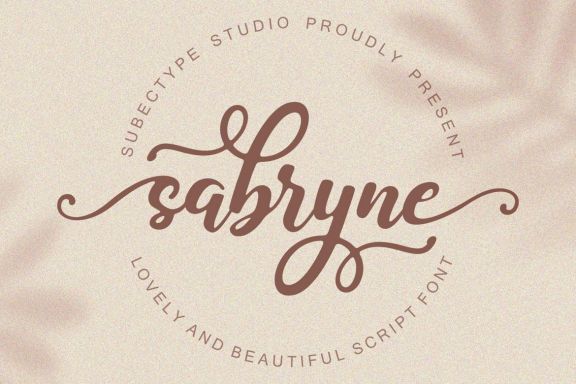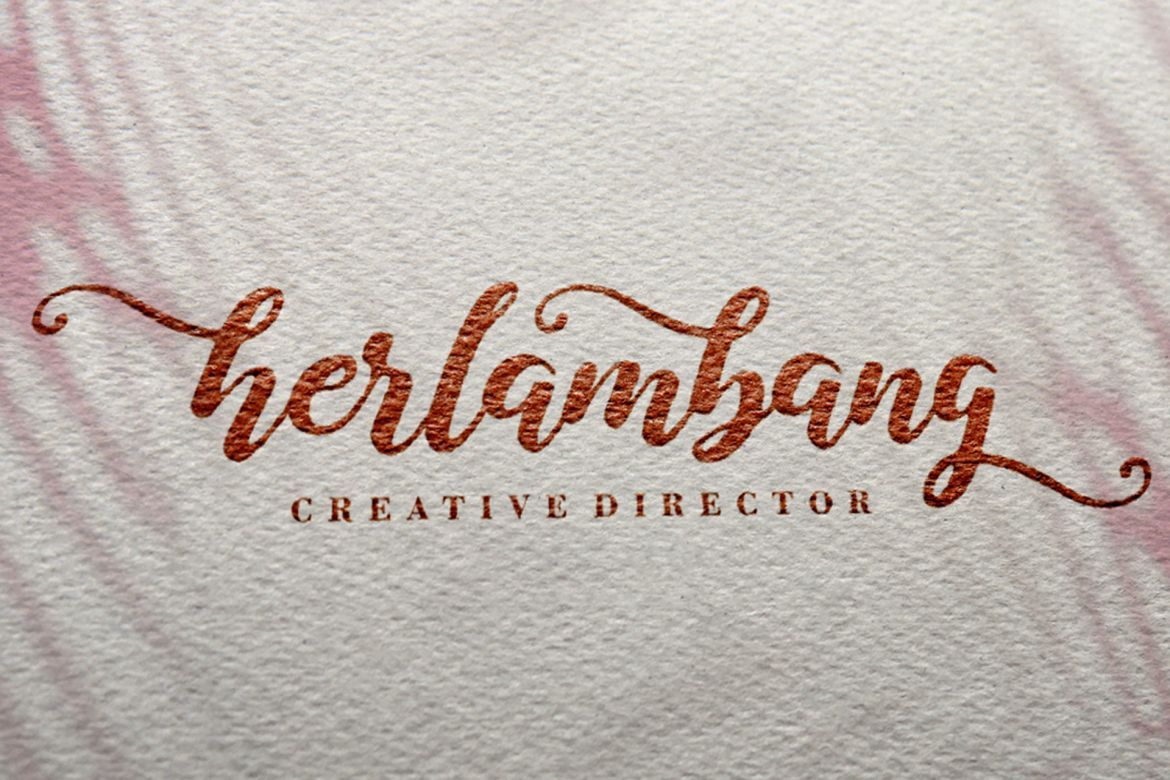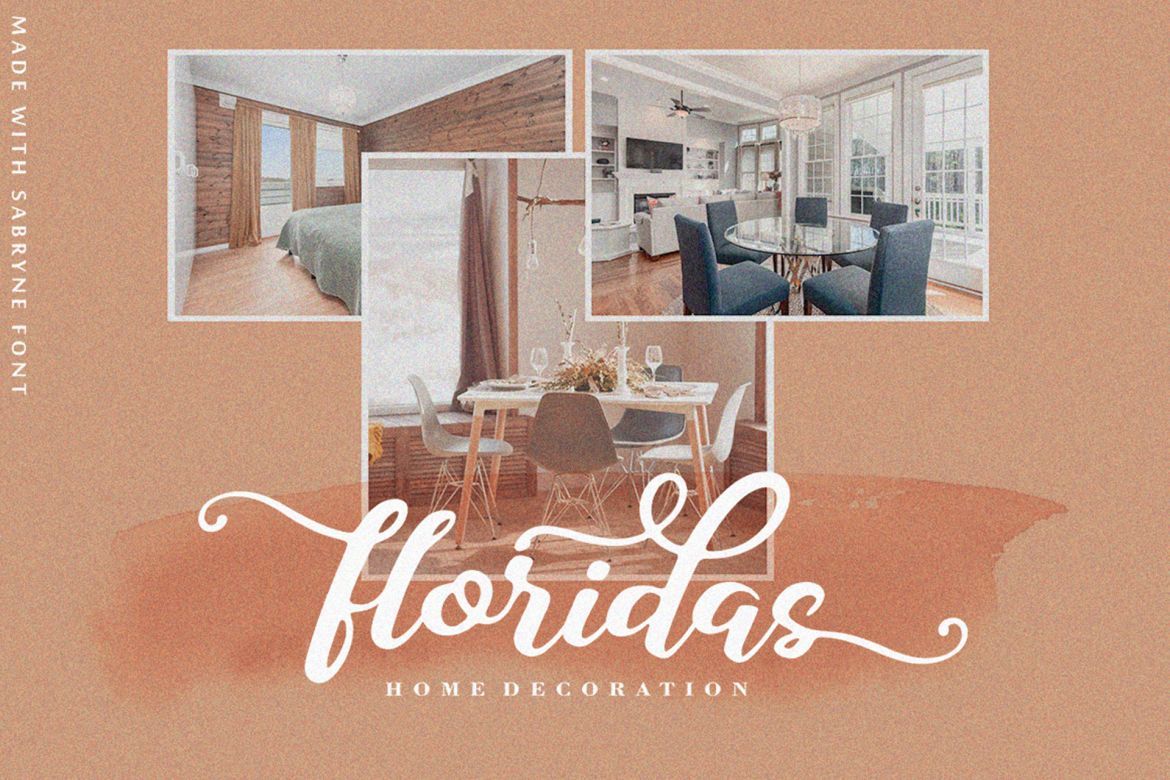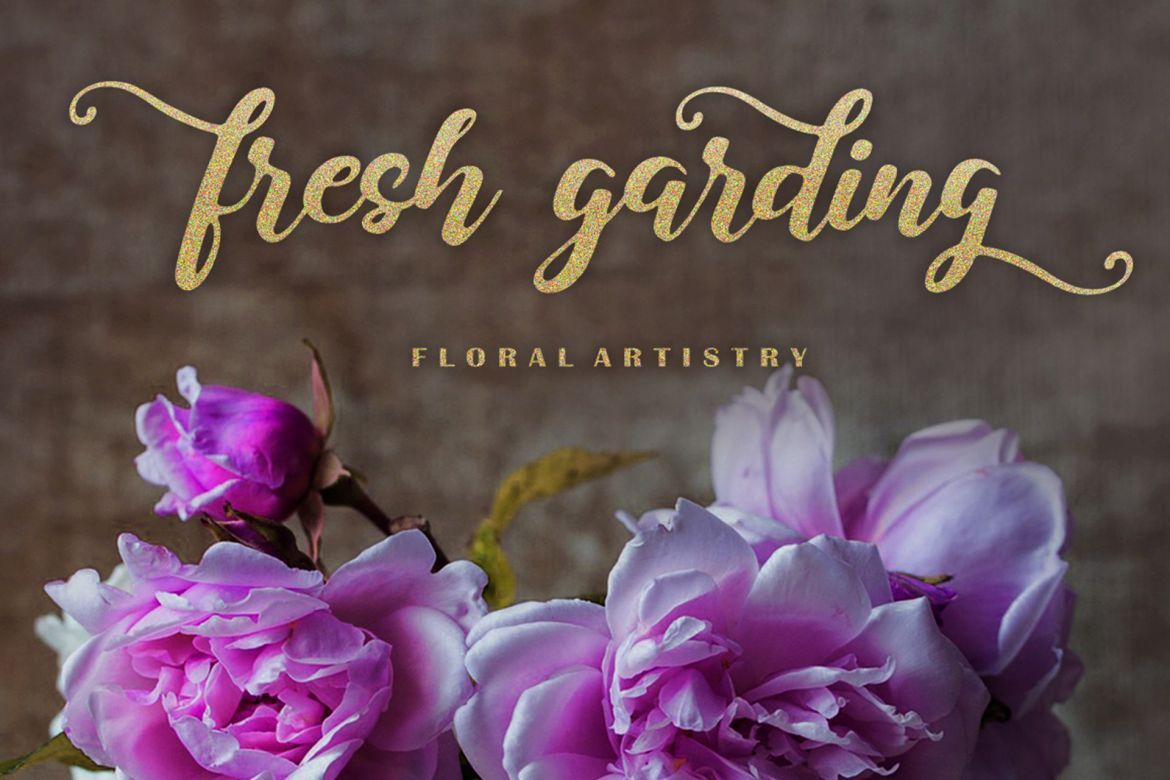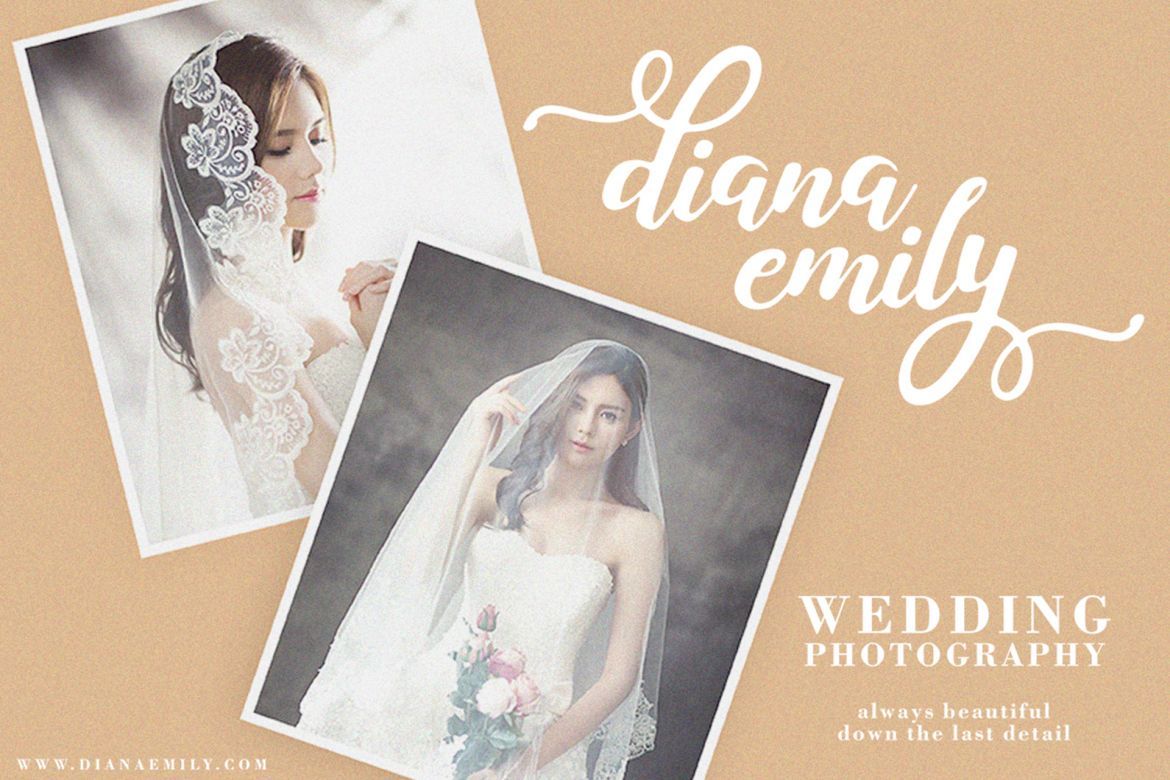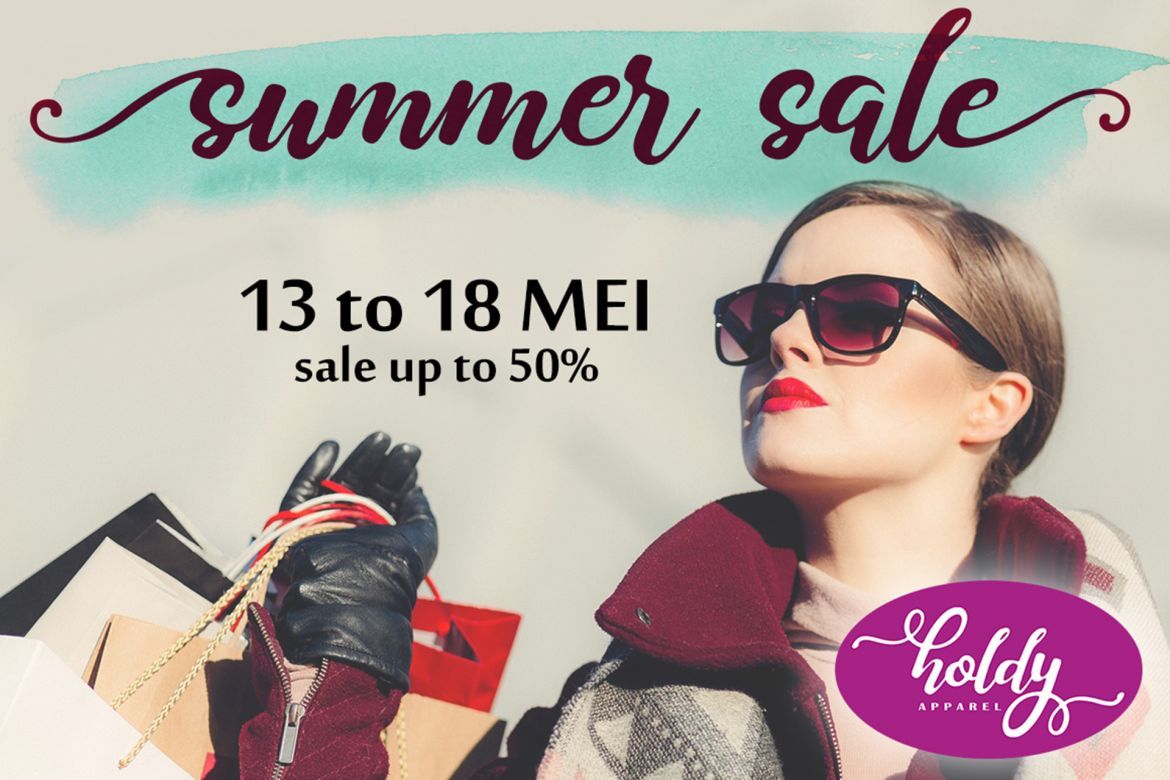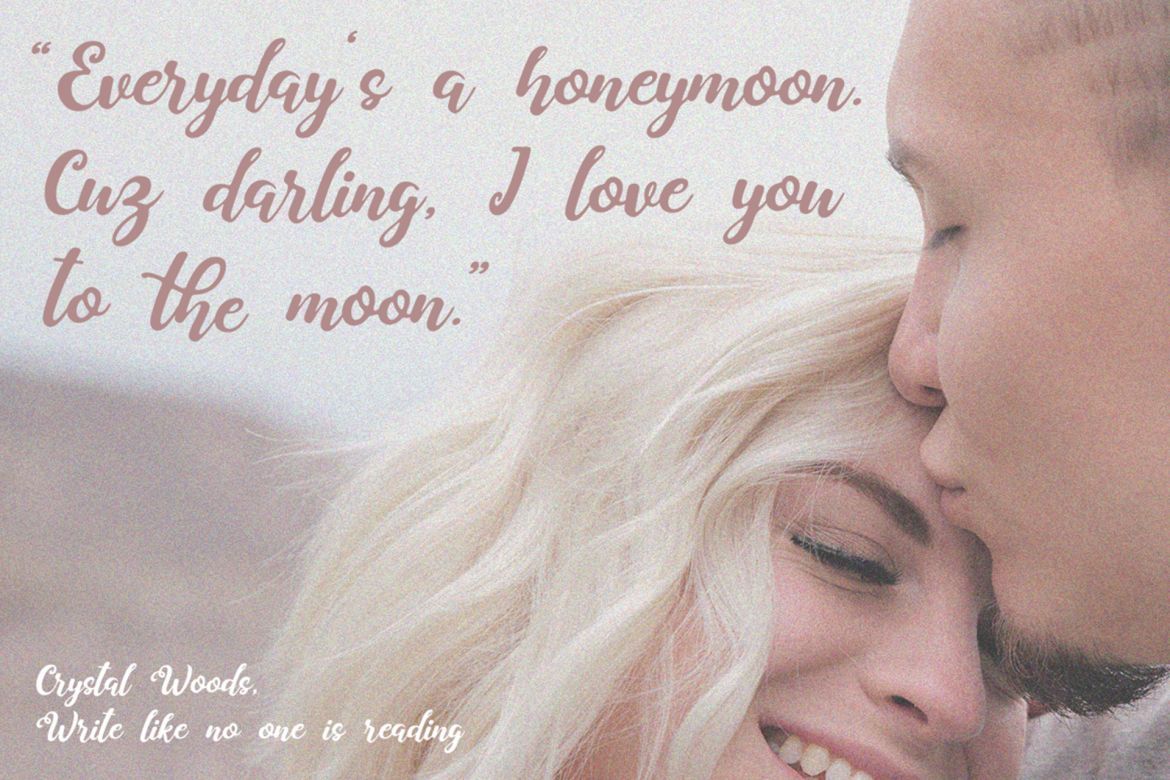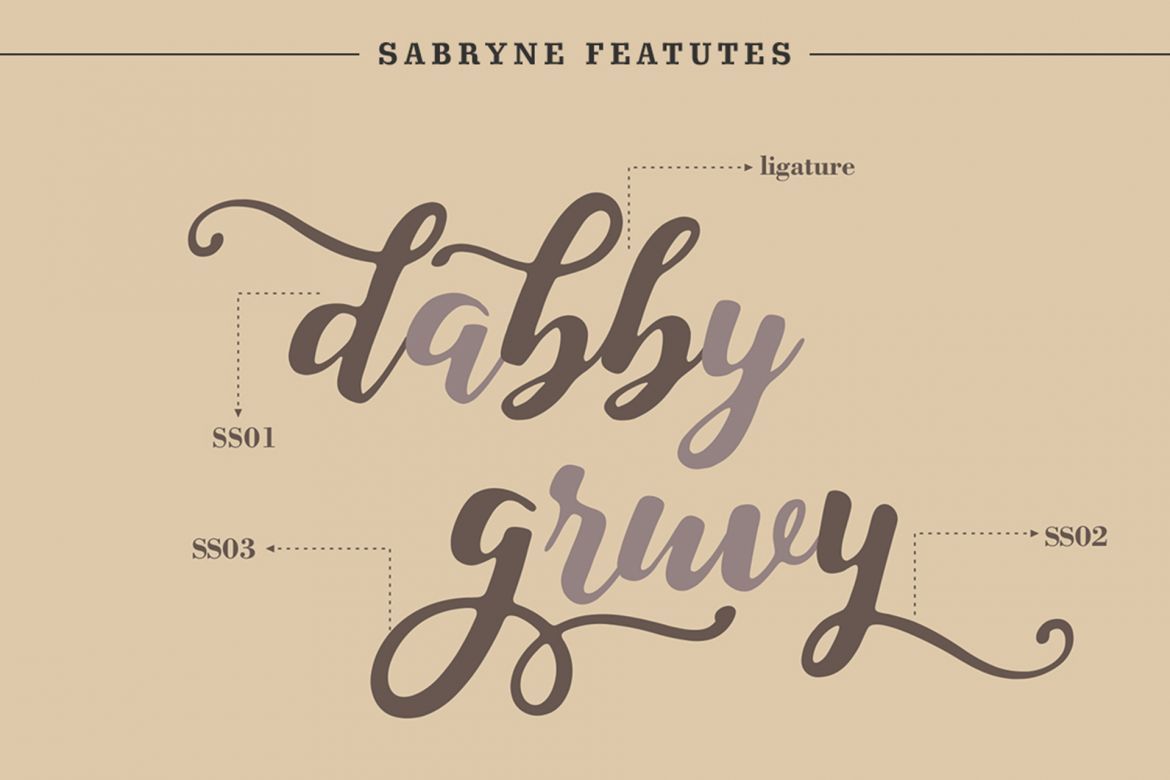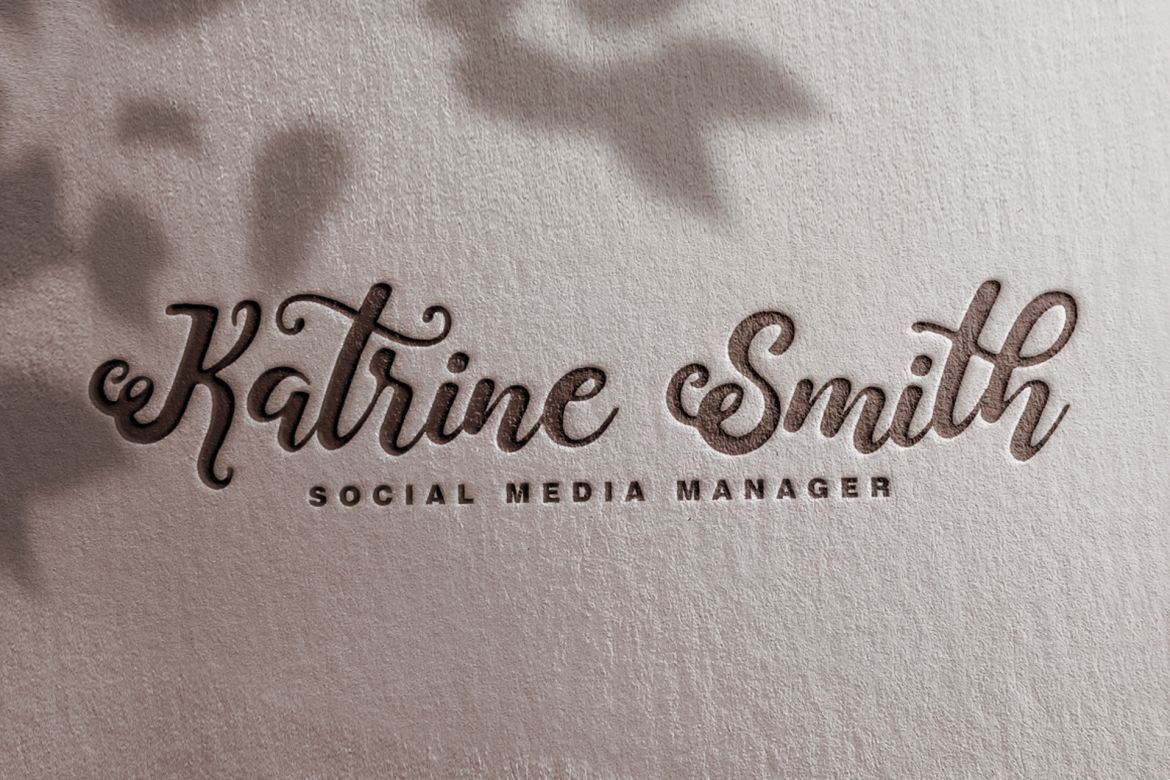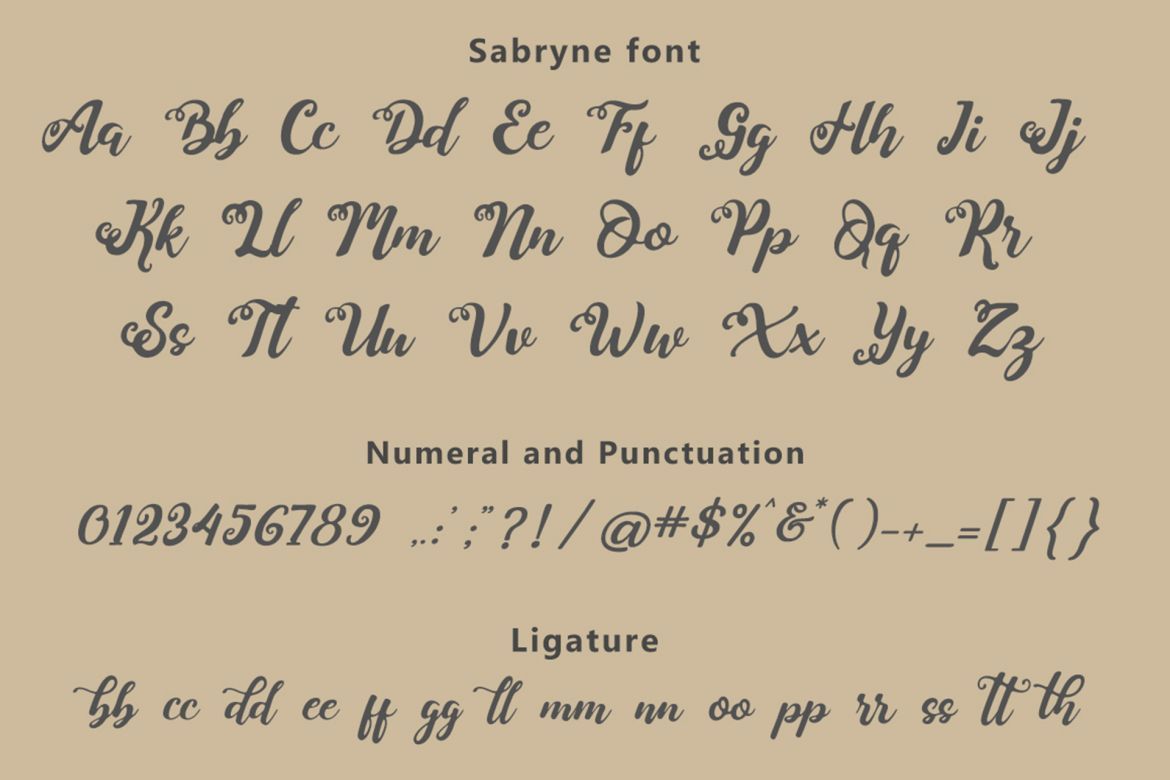
Sabryne Script Font
Sabryne is a beautiful and lovely script. It has a great readability and will add a fun and lovely touch to any design.
• each font has stylish handwritten style
• opentype features